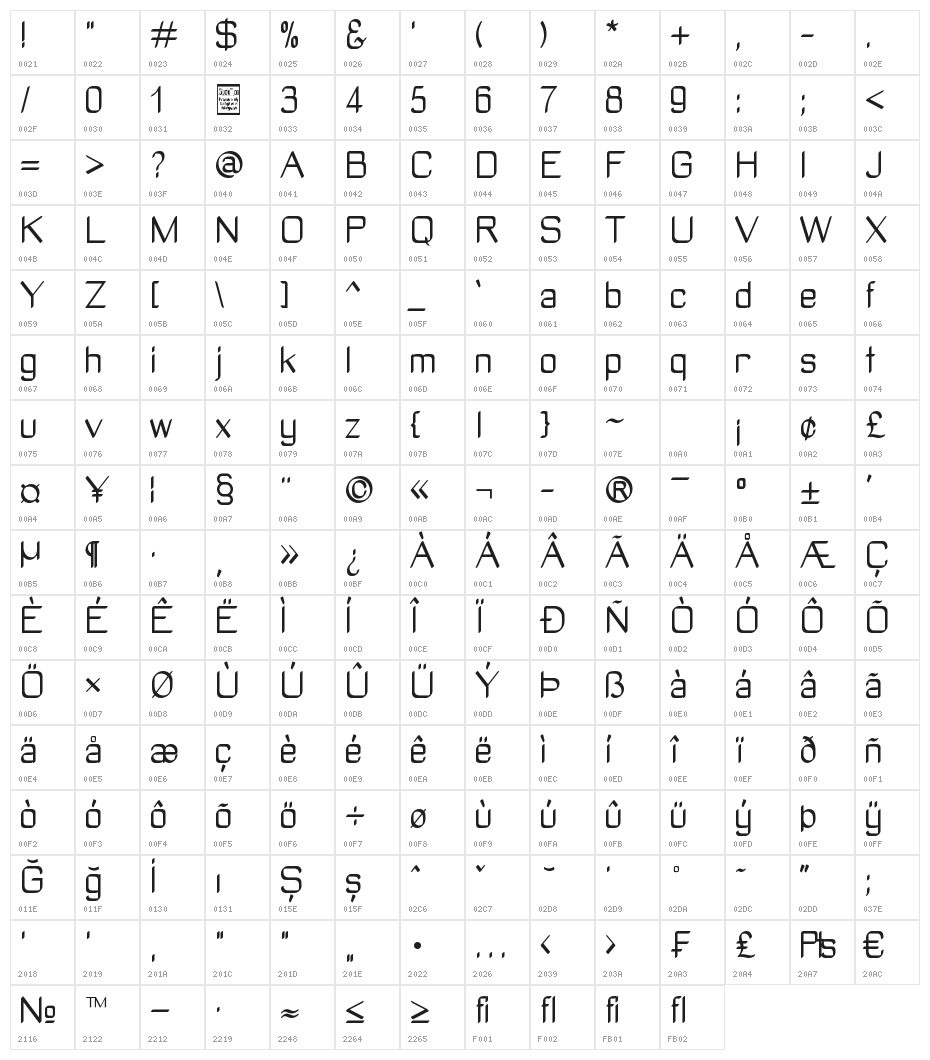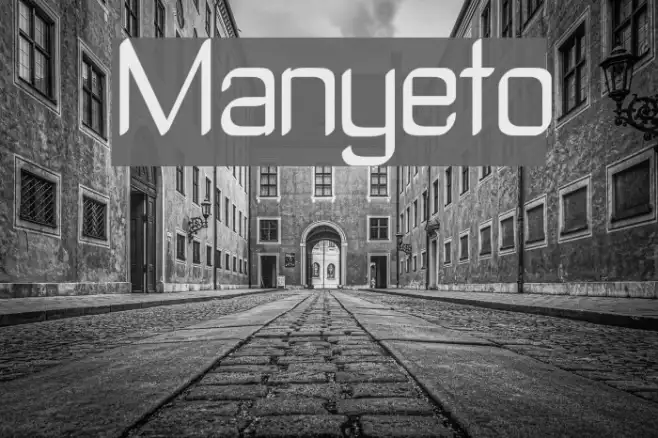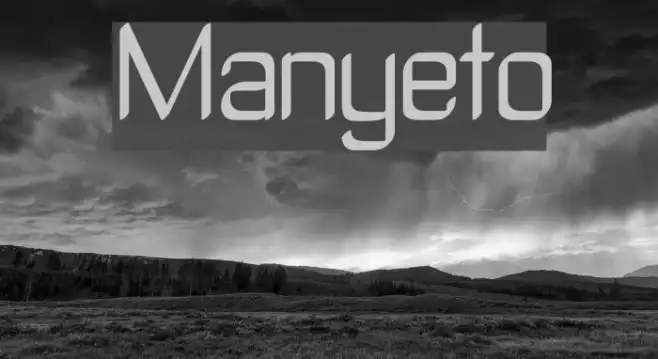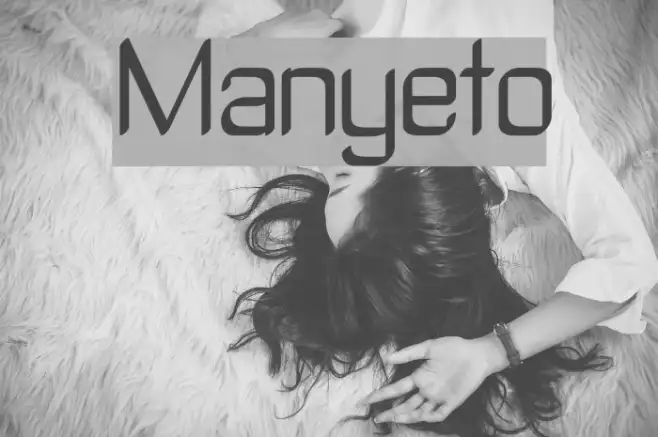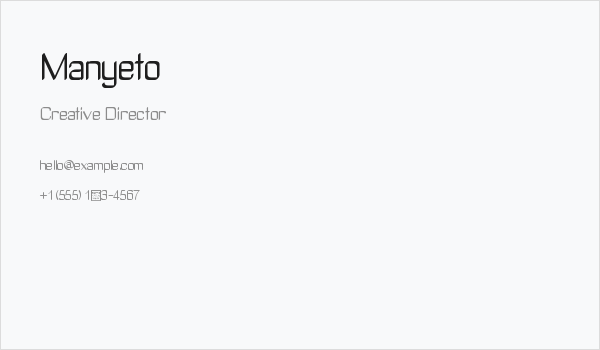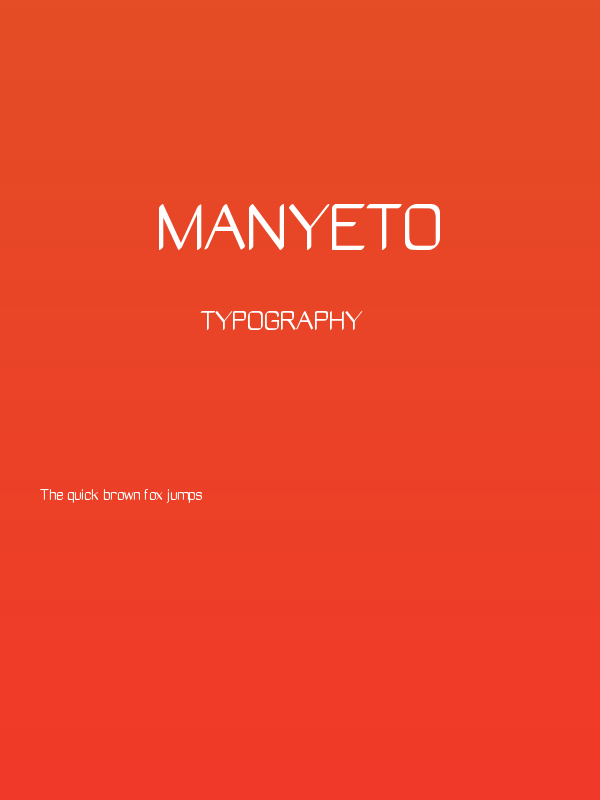
Manyeto Font
Manyeto Description
This font features a modern and sleek design with a geometric structure. The characters are slightly condensed, giving it a compact appearance. The uppercase letters have a consistent height, while the lowercase letters maintain a balanced proportion. The numerals are clear and easy to read, matching the overall style of the alphabet. Special characters are included, enhancing its versatility. The font's clean lines and minimalistic approach make it suitable for contemporary designs.
| Use Case | Headlines, Logos, Digital Interfaces |
| Proposed Projects | Ideal for tech branding, modern advertising, digital interfaces, and minimalist graphic design projects. |